New logo for Glamour Magazine brings elegance into the limelight
Designed in-house the new logo for Glamour is elegant and feminine as it should, replacing the old, very common, sans serif logo of the fashion magazine.
Baring a certain old Hollywood vibe ala Vanity Fair Glamour is a women’s magazine published by Condé Nast Publications.
Glamour is one of the biggest fashion and beauty media brands in the world, currently reaching an all-time high of one out of eight American women, with 9.7 million print readers, more than 11 million unique monthly users online, and over 14 million followers across social media platforms.
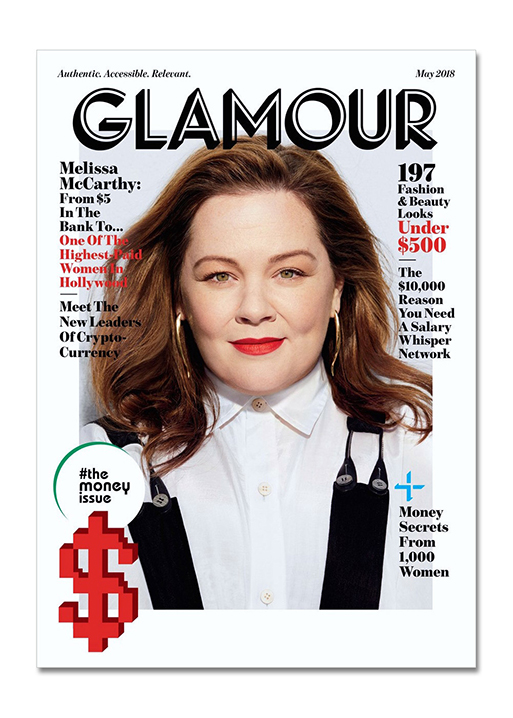
Glamour magazine is the latest magazine title which got radically redesigned lately in US.
The magazine’s revival comes with Glamour’s newly appointed editor-in-chief Samantha Barry. The former CNN and BBC veteran is “embarking on a comprehensive redesign of the 79-year-old title, which has struggled to gain traction in an increasingly digital media world” notes Business of Fashion. “Barry joined the challenged Condé Nast title just three months ago, succeeding Cindi Leive. The former editor led the publication for 16 years, turning it into what was at one point Condé Nast’s most lucrative title. The magazine still has the largest circulation at the publisher — an average of 2.3 million in the second half of 2017, according to the Alliance for Audited Media”.